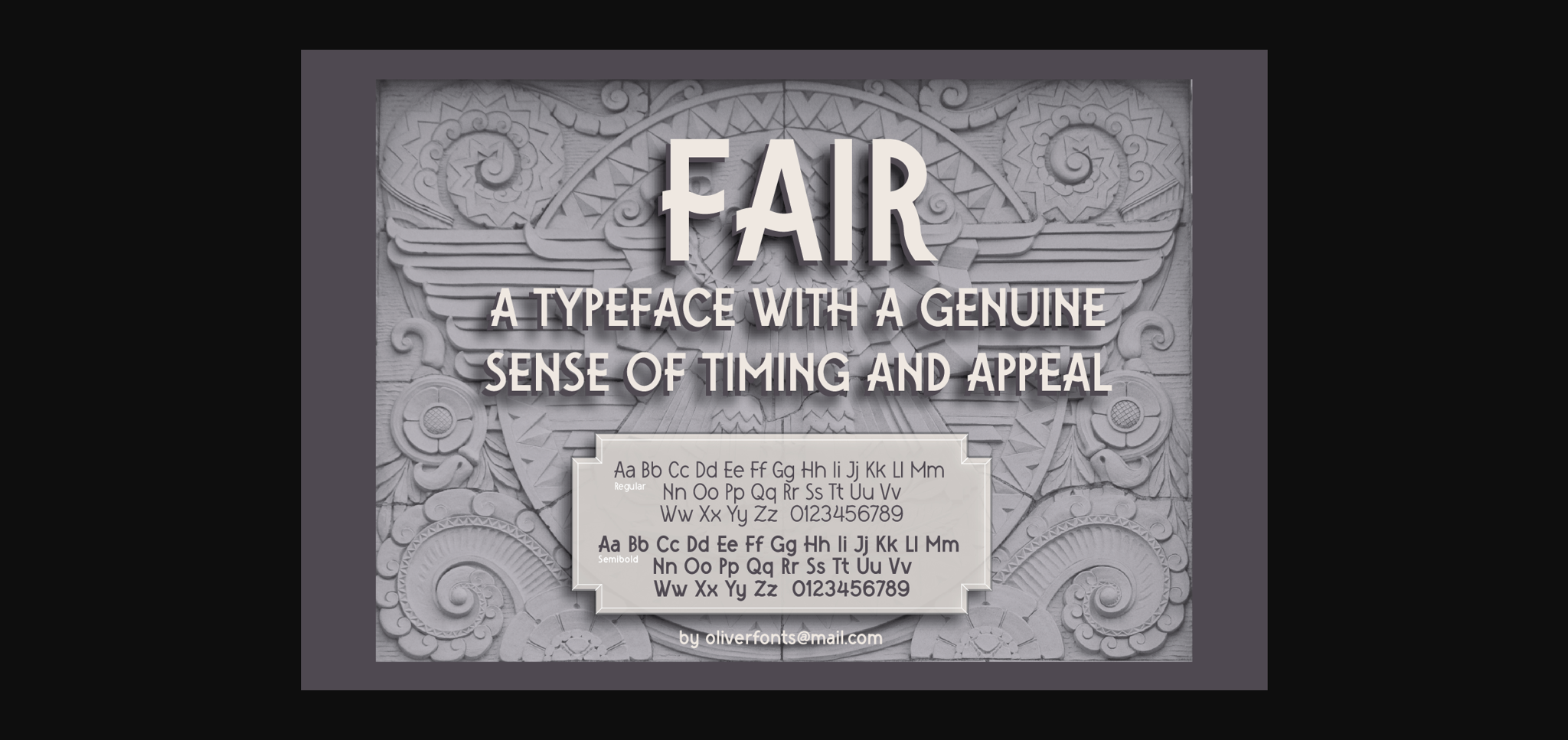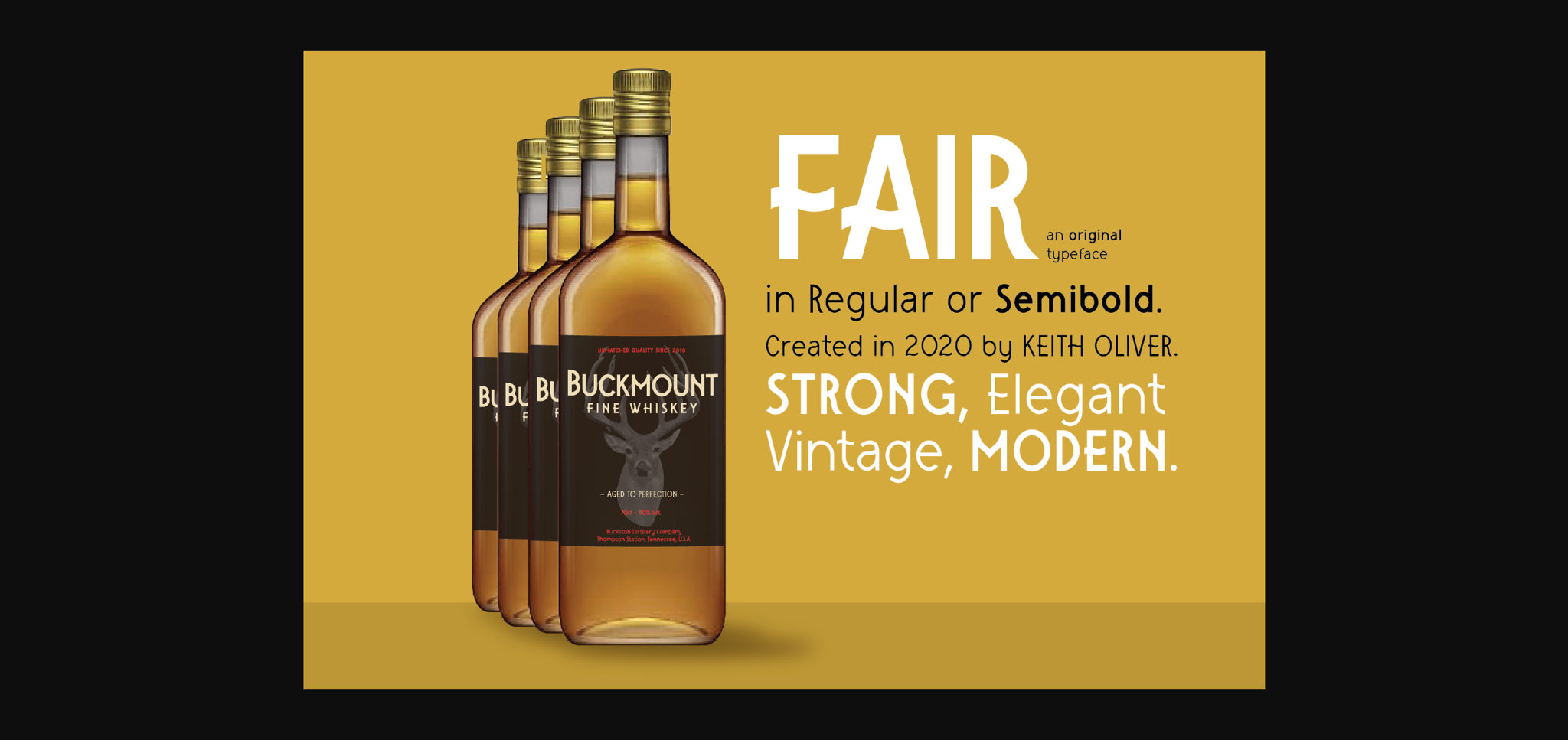
Fair Font
About Fair Font
Fair is a unique and interesting sans serif font. Add this font to your creative ideas and notice how it will make them stand out!